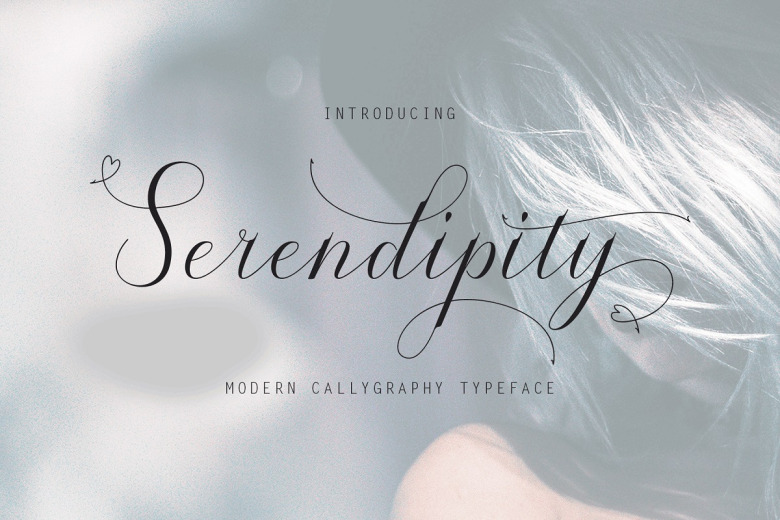
While Serendipity Font exemplifies a lovely modern calligraphic script, its hybrid structure wandering between eras enhances complexity. Amalgamating copperplate’s flowing form with contemporary flourishes, its dancing baseline tourneys tradition with innovation.
Though tracing lineages from vintage styles, innovative initials and terminals paired with alternates and ligatures lend contemporary nuance to classic foundations. Supporting multiple tongues refines its versatility without sacrificing stylistic integrity.
Serendipity Calligraphy Script Font